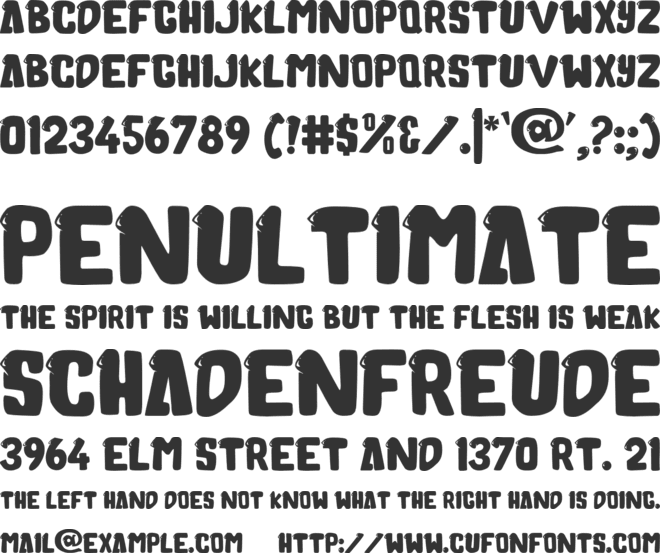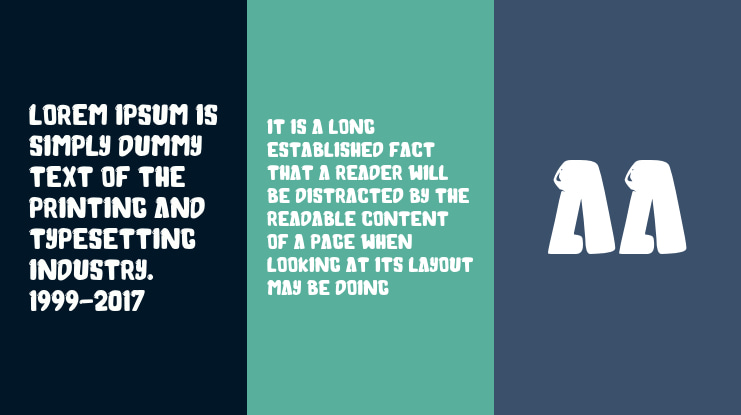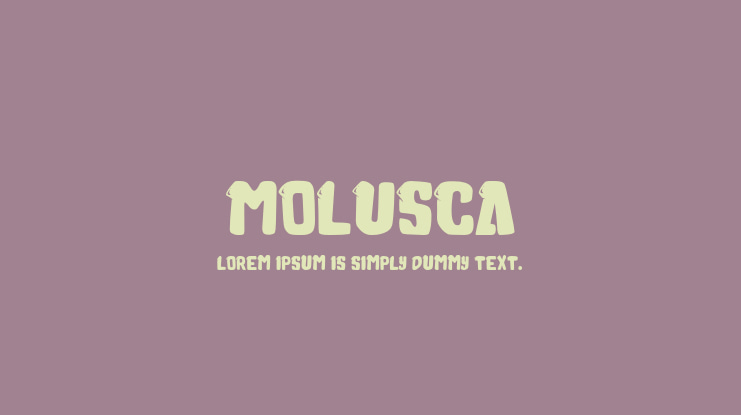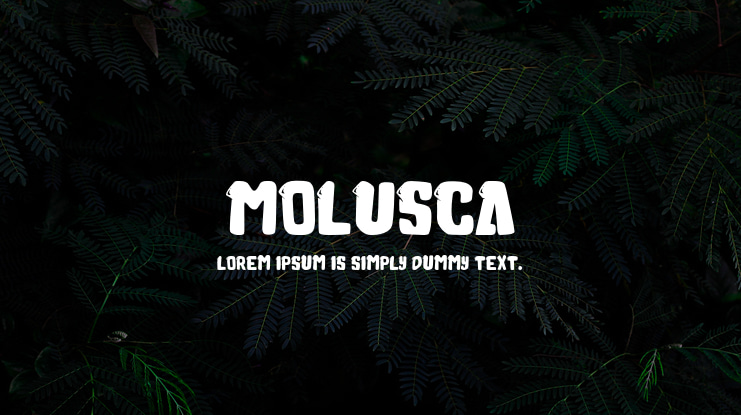
Molusca Font
Molusca is a funny, bold and cute display font with a unique twist. Get inspired by its unique feel, and add a lovely charm to any crafts project.